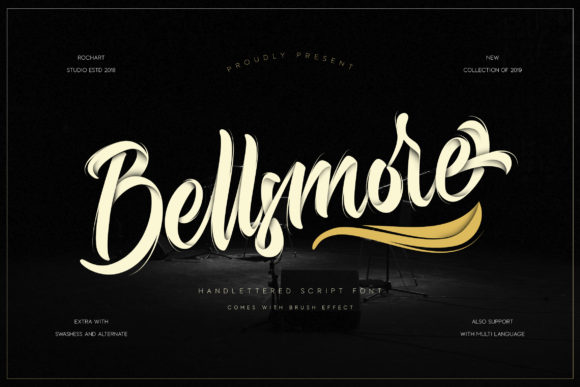
The Designer’s Delight: Uncovering the Charm of Bellsmore Font
I’ll never forget the moment I stumbled upon Bellsmore Font while working on a branding project for a trendy boutique. I was on a mission to find the perfect font that would capture the essence of the client’s bold and authentic brand. After hours of scouring through font libraries, I finally found Bellsmore – a wonderful and unique brush script that instantly won my heart. Its lovely charm and effortless elegance made it the perfect fit for the project, and I knew right then that I had to share it with fellow designers and creative enthusiasts.
• ✅ Unique and authentic brush script feel that adds a touch of personality to any design
• ✅ Bold and eye-catching, making it perfect for headlines and titles
• ✅ Lovely charm and elegance, suitable for a wide range of design projects
The Not-So-Perfect ⚠️
• 🤔 Limited use of stylistic alternates, which may limit its versatility in certain design scenarios
• ⚠️ May not be the best fit for body text or lengthy paragraphs, as it’s primarily designed for headlines and titles
The Story Behind Bellsmore Font: Designer Inspiration
Bellsmore Font was designed by a talented type designer who drew inspiration from traditional brush scripts and modern typography. The font’s creator aimed to craft a unique and authentic brush script that would add a touch of personality to any design project. With its lovely charm and bold feel, Bellsmore Font has quickly become a favorite among designers and creative enthusiasts.
Q: What type of projects is Bellsmore Font best suited for?
Bellsmore Font is perfect for design projects that require a bold and authentic feel, such as branding, packaging, and advertising.
Q: Can I use Bellsmore Font for body text or lengthy paragraphs?
While Bellsmore Font is highly legible, it’s primarily designed for headlines and titles. For body text or lengthy paragraphs, you may want to consider a more traditional serif or sans-serif font.
Q: Does Bellsmore Font come with OpenType features?
Yes, Bellsmore Font comes with a range of OpenType features, including ligatures and stylistic alternates, which can be accessed in compatible design software.
Q: Is Bellsmore Font suitable for digital and print design?
Absolutely! Bellsmore Font is designed to work beautifully in both digital and print environments, making it a versatile choice for a wide range of design projects.